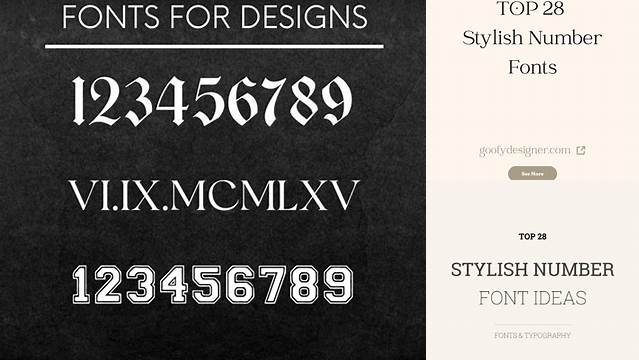
Stylish Number Fonts: Your Ultimate Guide
Hey guys, welcome! If you're anything like me, you know that choosing the right font can make or break a design. And when it comes to numbers, the choices can be just as important! Today, we're diving deep into the world of number fonts. We'll explore everything from classic styles to the latest trends, helping you find the perfect font to make your numbers pop. Whether you're a graphic designer, a web developer, or just someone who loves a good font, this guide has something for you. So, grab your favorite drink, get comfy, and let's get started!
Number Font Selection: Choosing the Right Style
Okay, so you're ready to pick a number font, but where do you even begin? Well, the first step is understanding the different styles available. Number fonts come in a massive range of styles, and each one conveys a different feeling. Think about what message you want to send. Are you going for a clean, modern look? Or maybe something more playful and whimsical? Let's break down some of the most popular number font styles to get you started. First up, we have the classic serif fonts. These fonts, like Times New Roman or Georgia, have little strokes at the end of each number. They're known for their readability and traditional feel, making them great for formal documents and anything that needs to look professional. Then there are sans-serif fonts, which are fonts without those little strokes. These fonts, such as Arial or Helvetica, offer a more modern and minimalist look. They're perfect for websites, headlines, and anything that needs to feel clean and contemporary. Moving on, we have script fonts. These fonts mimic handwriting, offering a touch of elegance and personality. They're often used for invitations or logos. Next up are monospace fonts, which give each number the same width. This can create a unique, techy feel. And finally, display fonts, which are designed to grab attention. These are often bold, creative, and used for headlines or special occasions. The key to selecting the right number font lies in considering the project's purpose and your desired aesthetic. Think about your audience, the overall design, and the message you want to communicate, then choose a number font that compliments your style and is easily readable. Remember, guys, readability is always king!
Number Font Design: Tips and Tricks for Success
Okay, you've chosen your fonts, now it's time to put them to work! Let's talk about some tips and tricks for designing with number fonts. First up is hierarchy. Use different font sizes, weights, and styles to create a visual hierarchy and guide the viewer's eye. Make your most important numbers the largest and boldest. This helps viewers immediately grasp what's important. Next, consider kerning. Kerning is the space between the letters. Adjusting the kerning can greatly affect readability. In some fonts, the spacing between numbers might look awkward. This can be easily fixed in design software. Always fine-tune the kerning for the best results. Now, let's talk about contrast. Make sure your numbers contrast well with the background. If your background is dark, use light-colored numbers and vice versa. This ensures your numbers are easily readable. Another crucial aspect is alignment. Make sure your numbers are aligned consistently. Whether it's left, right, or centered, consistency is key for a polished look. If you have multiple numbers, consider grouping them visually. You can use lines, boxes, or colors to emphasize the connection. Finally, don't be afraid to experiment. Try different combinations of fonts, colors, and layouts to see what works best. Design is all about trying new things until you find the perfect balance. Remember, the goal is to make your numbers look good and be easy to read. By using these tips, you'll create designs that are beautiful and functional.
Modern Number Font Trends: What's Hot Right Now?
So, what's trending in number fonts these days? Let's take a look at some modern number font trends that are turning heads. First up is bold and geometric fonts. These fonts are known for their clean lines and strong presence. They work great for headlines, logos, and anywhere you want to make a statement. Next, we have rounded fonts. These fonts offer a friendly, approachable vibe. They're perfect for apps, websites, and any design that aims to be welcoming. Another trend is variable fonts. These fonts allow you to change the weight, width, and other properties, making them incredibly flexible. They are great for websites, as they can adapt to different screen sizes. Now, let's talk about retro fonts. With the resurgence of nostalgia, retro fonts are becoming popular. They're known for their nostalgic feel. Next up is layered fonts. These fonts have different layers, and they can give a cool 3D effect. They're often used for posters and event promotions. Another trend is handwritten fonts. Handwritten fonts add a personal touch. They're great for invitations and social media. Don't be afraid to experiment with these trends to create designs that are fresh and current. But, remember, always consider the context. What works great for one project might not be right for another. Adapt your fonts and designs to suit the needs of each project.
Number Font for Logos: Making a Great First Impression
Logos, guys, are often the first thing people see, so using the right number font can make a huge difference. Choosing the perfect number font for your logo means understanding your brand's personality and the message you want to convey. First, let's consider readability. The most important thing is that the numbers in your logo are easy to read. Avoid fonts that are too fancy or complex, as these can be hard to read, especially when scaled down. Next, think about style. Does your brand have a classic, modern, or playful vibe? Choose a font that reflects that style. For instance, a tech company might use a clean sans-serif font, while a bakery might use a more playful script font. Now, let's discuss versatility. Make sure your chosen number font works well across different platforms and sizes. Test your logo on your website, business cards, and social media to make sure it looks good everywhere. Another important aspect is uniqueness. While you want a font that's readable, you also want a font that stands out. Look for fonts that are unique to make your logo memorable. Always consider the brand colors. Your number font should work well with your brand's color scheme. Make sure there is enough contrast so your numbers pop out from the background. Finally, remember that your logo should be timeless. Avoid overly trendy fonts that may quickly become outdated. The right number font will help you create a logo that represents your brand well. This all helps to make a positive first impression.
Number Font for Websites: Enhancing User Experience
Websites are all about user experience (UX), and the right number font can significantly impact how users perceive and interact with your site. So, how do you choose the right number font for your website? First and foremost, readability is critical. Select fonts that are easy to read on different devices and screen sizes. Sans-serif fonts are usually a good choice for web content. Next, think about accessibility. Make sure your number font is accessible to users with visual impairments. Use sufficient contrast between the font color and the background. Also, choose fonts that have clear number shapes. Then, consider performance. The font you choose should load quickly. Avoid fonts that are large, as they can slow down your site. Choose web-optimized fonts and use font formats like WOFF. Think about branding. Choose a font that matches your brand's personality. Consistency is key. If you are using the same font for other elements on your site, make sure it is also used for your numbers. Remember responsiveness. Your number font should look good on any screen size. Make sure your design is responsive to adapt to different devices. It's also important to think about user engagement. Use your number fonts to grab attention. Consider using bold numbers for important stats, such as customer reviews or sales figures. Use number fonts strategically throughout your site to guide the user and improve the user experience. When designing your website, always consider the user.
Number Font for Print: Ensuring Legibility and Impact
Print design, guys, has its own set of challenges and considerations when choosing number fonts. Let's explore how to select the right number fonts for print projects. First, always prioritize readability. Printed materials, like brochures or magazines, need to be easy to read. Avoid fonts that are too thin or complex. Then, choose fonts that work well on paper. Some fonts might look great on a screen but not so great on paper. It is a good idea to print a sample of your design. Consider the size and scale of your project. A large poster requires a different font than a small business card. Make sure your numbers are visible from a distance. Always use high-resolution fonts. Ensure that the fonts are high-resolution to avoid pixelation. Avoid pixelated numbers. The color of the numbers is also important. Choose a font color that contrasts well with the background. High contrast improves readability. Consider the paper type. The type of paper you choose can affect the look of your font. Test your font on various paper types before printing the entire project. Also, think about the context of the design. The number font you choose should match the design's overall theme and tone. Formal documents require professional fonts, while playful projects might use a more creative style. By considering all these things, you can make informed decisions and ensure your numbers look great in print. Prioritizing clarity and impact helps make your print designs successful.
Best Number Fonts for Websites: Top Choices
So, you want to know the best number fonts for your website? Let's dive into some of the top choices. First, Roboto is a versatile and popular sans-serif font known for its readability and modern look. It is ideal for websites and can be used for various purposes, from headlines to body text. Another great option is Open Sans. This is another popular sans-serif font that is clean and easy to read on screens. It's a great choice for websites. Next, we have Lato. This sans-serif font is known for its friendly and approachable feel. It is a great choice for websites. Then, consider Montserrat. This is a sans-serif font that has a geometric style. It is perfect for websites. Then, we have Poppins. This is a versatile sans-serif font that is known for its clear and simple design. It is very popular for websites and can be used for any purpose. The next one is Raleway. This sans-serif font is known for its elegance and is a good choice for websites. Finally, Nunito is a simple, easy-to-read, and very modern sans-serif font that is an ideal pick for a lot of websites. Remember that readability is key. Experiment with different fonts to see what best fits your website's design. Use the fonts that match your brand. Test how these fonts look on different devices.
Number Fonts in Graphic Design: Creative Applications
Graphic design is where number fonts really shine, offering unlimited creative possibilities! Here are some creative applications for number fonts in graphic design. First, in infographics, use number fonts to highlight statistics and data. Choose clear and easy-to-read fonts to communicate information. Also, use them in posters and flyers. Use bold and eye-catching fonts to create headlines and attract attention. In logos, use number fonts to represent dates, quantities, or other information. Always choose fonts that match your brand's identity. Next, consider packaging design. Use number fonts for product codes, dates, and other details. Make sure the fonts are easy to read and reflect your brand's style. Then, we have social media graphics. Use number fonts to create eye-catching posts with statistics or announcements. Choose fonts that stand out on social media. Now, let's talk about typography art. Use numbers as the main design element. Combine different fonts and sizes to create unique artworks. Another application is in motion graphics. Use number fonts in video titles, animation, and transitions. Choose fonts that are easy to read on screens. The key to great design is to experiment with different combinations. Graphic design is all about creativity.
Number Font for Excel: Optimizing Spreadsheet Readability
Okay, guys, let's talk about number fonts in Excel! Choosing the right font for your spreadsheets can improve readability and make your data easier to understand. Here are some things to consider. Firstly, readability is crucial. Select a font that is clear and easy to read, even when the numbers are small. Then, consider legibility. Make sure that numbers like 1 and 7, or 0 and 8, are easily distinguishable. Also, use sans-serif fonts, like Arial or Calibri. These fonts are generally easier to read on screens. Ensure there is enough spacing between columns and rows to avoid crowding. Also, use different font sizes to highlight important information. Consider using bold to draw attention to headings or totals. Use colors to differentiate data. Then, apply consistent formatting throughout the spreadsheet. Consistency enhances readability and makes your data more organized. Always test your spreadsheet to ensure that everything is clear and easy to read. By choosing the right number font and formatting, you can transform your spreadsheets from complex data to a clear visualization. Remember that organized spreadsheets are very important.
Number Font for Presentations: Engaging Your Audience
Presentations are all about captivating your audience, and the right number font plays a crucial role in achieving that! So, here's how to choose number fonts that engage. First, readability is key. Choose fonts that are easy to read from a distance. Sans-serif fonts like Arial or Calibri are often great choices. Next, consider visual impact. Select fonts that are visually appealing and complement your presentation's overall design. Also, be consistent. Use the same number font throughout your presentation to create a cohesive look. Make sure you have enough contrast between your number font and the background. High contrast improves readability. Choose font sizes that are large enough to be seen. Also, use bold to emphasize important numbers or data. Then, apply animations. Use animations to make your numbers more engaging. Consider white space. The use of white space prevents clutter and improves readability. Choose fonts appropriate for your theme. Professional presentations require professional fonts. Consider your brand. Using the same font style on your brand creates consistency. Always test your presentation to ensure the font is easy to read on the big screen. By selecting the right fonts, you can transform your presentation from a data dump to an engaging experience.
Number Font for Coding: Enhancing Code Readability
Alright, let's talk about number fonts for coding. Using the right font can significantly improve code readability, making it easier for you to understand and debug your code. First, monospace fonts are the go-to choice. These fonts give each character the same width, which helps align your code and makes it easier to scan. Then, consider the clarity of the characters. Choose fonts where characters like '0' and 'O', or '1', 'l', and 'I', are easily distinguishable. The font size should be comfortable to read. Choose a font size that is comfortable to read for long coding sessions. Think about the font weight. Use a clear font weight so you can see the font clearly. Syntax highlighting can help you differentiate between different parts of your code, making it even more readable. Contrast is also important. Use fonts with high contrast. Also, think about the environment. Choose a font that is compatible with your code editor or IDE. You can also consider personal preferences. Experiment with different fonts to find one that feels comfortable. Also, it's important to think about legibility. Choose the right number font with the right legibility. By choosing the right number font, you can make your code look better, read better, and easier to maintain.
Number Font for Mathematics: Displaying Equations Clearly
For mathematics, selecting the right number font is crucial for displaying equations clearly and accurately. So, let's dive in! First and foremost, clarity is key. Ensure the font's numbers and symbols are easily distinguishable, minimizing confusion. Serif fonts, such as Times New Roman, are often preferred for mathematical equations because the serifs help differentiate characters. Also, make sure the font size is appropriate for the context. The size should be large enough to be read easily, especially in printed materials. Also, consider the symbols the font supports. Math often uses many special characters. It is good to choose fonts that have a wide range of mathematical symbols. Check for compatibility. Ensure that the font you choose is compatible with the software you're using. Next, think about consistency. Maintain the same font throughout your equations for a professional look. Be sure to choose a font weight that is easy to read. Always consider readability. Choose a number font that is clear and easy to read. Also, test your equations. Make sure everything is legible before using it for a project. Choosing the right font can ensure the clear presentation of complex equations and ensure that everything is understandable.
Number Font for Calendars: Creating Readable Schedules
Calendars, my friends, are all about organization, and the right number font can make or break your schedule! First and foremost, readability is crucial. Choose fonts that are easy to read at a glance. Avoid overly decorative fonts that might be hard to decipher. Size also matters. Make sure the numbers are large enough to be easily seen, but not so large that they take up too much space. Also, use sans-serif fonts for a clean and modern look. Ensure sufficient spacing between the numbers and other elements. The spacing ensures clarity. Also, consider contrast. Ensure your numbers contrast well with the background color. Think about hierarchy. Use bold or different font sizes to highlight important dates. Also, use visual cues. Consider using different colors to highlight important events. The format must be consistent. Use consistent formatting to avoid confusion. Make sure your calendar is accessible. It should be easy to read by everyone. Always make sure the font fits your brand. Choosing the right number font can help you create a schedule that's both functional and visually appealing. Use the right number font and organize your schedule!
Number Font for Watches: Balancing Style and Functionality
Watches are a perfect blend of style and function, and the number font you choose plays a huge part in how they're perceived. First up is readability. This is crucial. The numbers need to be easily readable at a glance, especially in low-light conditions. Then, think about style. The font should match the watch's overall design. A classic watch needs a classic font. Also, consider the size and scale. The size and scale should fit the watch face and be proportional. Remember that contrast is very important. Make sure the numbers contrast well with the watch face. Another important aspect is legibility. Choose a font that is clear and legible. Also, consider functionality. Make sure the font is practical for the watch's purpose. Be sure the font is consistent with your brand. Always test the font under different light conditions. Choosing the right number font can enhance a watch's style and functionality.
Number Font for Financial Documents: Ensuring Accuracy
When it comes to financial documents, accuracy and clarity are paramount, making the right number font a critical element. First, readability is extremely important. The font needs to be easy to read. Also, consider legibility. Make sure that all numbers, including decimal points, are clearly distinguishable. Use sans-serif fonts to ensure clarity. Make sure to use sufficient spacing between numbers. Consider font size. The font size should be appropriate for the document. Also, use bold for important figures or headings. Consistency is also vital. Use the same font throughout the document. Choose a professional font. The font should look professional. Always double-check the numbers. By selecting the right number font and careful formatting, you can enhance the accuracy and professionalism of your financial documents. Remember, clarity is key!
Number Font for Sports: Creating Engaging Scoreboards
Sports scoreboards are all about delivering information instantly. Choosing the right number font can significantly impact how fans experience the game! First, the readability is crucial. Numbers must be visible from a distance and in any lighting conditions. Bold, clear fonts are typically ideal. Then, consider size and scale. The numbers need to be large enough to be seen clearly from afar. Use high-contrast colors between the numbers and the background. Then, think about style and branding. The font should match the team's or league's brand identity. Also, make sure to consider clarity. The fonts should be clear and easy to understand. Consider the viewing angle. Make sure the numbers are readable from different angles. Consistency in the font choice is key throughout the scoreboard. Then, ensure it is durable. The font must be durable for outdoor usage. Consider animation. Use animation to highlight important information. The right number font can make scoreboards more effective.
Number Font for Data Visualization: Presenting Data Clearly
Data visualization is all about turning complex data into understandable visuals. The right number font can greatly impact the effectiveness of your charts and graphs. Firstly, readability is key. Choose fonts that are easy to read, even when they are small. Also, consider legibility. The numbers should be clear and easy to distinguish. Use sans-serif fonts for clarity. Ensure there is enough contrast between the font color and background. Also, use an appropriate font size. Select a font size that fits the data visualization. Then, apply consistency. Use the same font throughout the data visualization. Make sure it is clear. The fonts should be clear and easy to understand. Always consider accessibility. Design the data visualization to be accessible to everyone. Also, consider your brand. It should match your brand's identity. Choosing the right number font helps to turn complex data into clear, understandable visuals.
Number Font for Video Games: Enhancing the Gaming Experience
Video games are all about immersion, and the right number font can significantly improve the gaming experience. First, the readability is extremely important. The numbers must be easy to read on any screen. Also, think about style. The font should match the game's style. Select a font that fits the gaming genre. Contrast is very important. Ensure the numbers contrast well with the background. The font size must be appropriate for the game. Make sure it's visible. Also, think about legibility. The fonts should be clear and easy to understand. Next, consider animation. Use animation to make your numbers more engaging. Consistency is also important. Use consistent fonts throughout the game. Always test the font in the game. Choosing the right number font enhances the gaming experience.
Number Font for Education: Making Learning Engaging
In education, making learning engaging is the name of the game. The right number font can make a big difference in how students interact with educational materials. The first priority is readability. Choose fonts that are easy to read for all ages. Then, think about legibility. Make sure that the numbers are easy to understand. Also, make sure to use sans-serif fonts. This will provide better clarity. Consider the font size. Make sure to use an appropriate font size. Also, think about visual appeal. Use the right font to enhance the learning materials. Consistency is vital. Use consistent fonts throughout your learning materials. Consider accessibility. Always ensure the learning materials are accessible to everyone. The font should match the age. The right number font can help create a more engaging learning environment.
Number Font for Digital Art: Expressing Creativity
Digital art is all about expressing creativity, and choosing the right number font can be a powerful tool! So, let's explore the creative applications! First, think about style. The font should match the artwork's style. Also, think about expression. The font should convey the message you want to express. Then, think about the visual appeal. The font should enhance the artwork's overall appearance. Also, use bold fonts. The font must be bold and stand out. Experiment with different fonts. Experiment with a lot of different fonts to express your creativity. Consider color. The font should match the color of your artwork. Consistency is important, too. Use consistent fonts throughout your artwork. By choosing the right number font, you can enhance the beauty of your digital art.
Number Font for User Interfaces (UI): Improving Usability
User interfaces (UI) are all about usability. The right number font can greatly improve the user experience. First, readability is key. Choose fonts that are easy to read. Also, consider legibility. The numbers must be clear and easy to understand. Also, consider the font size. Use a font size that's appropriate for the UI. Make sure to choose a font that matches the UI. The font must match the style of the UI. Consider responsiveness. Choose a font that works on different screen sizes. Also, always consider accessibility. Make your UI accessible for everyone. Make your UI easy to use, and the right number font helps a lot.
Number Font for Tables: Organizing Data Effectively
Tables are all about presenting data effectively. The right number font can make your tables easier to read and understand. So, first, readability is critical. Choose fonts that are easy to read in the tables. Consider the font size that fits the size of the table. Next, think about legibility. Numbers should be clear and easy to distinguish. Also, you should always use sans-serif fonts. This will help the clarity. Consider alignment. Align your numbers for a clean look. Consider spacing. Ensure enough space between the numbers. The right font can help organize your data effectively!
Number Font for Spreadsheets: Enhancing Data Analysis
Spreadsheets are essential for data analysis, and using the right number font can greatly improve the accuracy and clarity of your data. First, the readability is key. Numbers should be easy to read, even when the numbers are small. Also, make sure the font is legible. Ensure numbers are distinguishable. Consistency in formatting enhances readability. Also, use the right font size. The font size should be appropriate for the context. Then, use bold to emphasize important numbers. Also, use colors for clarity. The right font enhances data analysis.
Number Font for Animation: Creating Dynamic Visuals
Animation is all about creating dynamic visuals, and using the right number font can bring your animations to life. First, the readability is important. The font should be readable on the screen. Also, consider the style of animation. The font must match the style of your animation. Then, you should choose the right font size. The size must be appropriate for your animation. Also, make sure to use clear fonts. Clear fonts are easier to read on the screen. The font must be consistent. The right font can bring your animations to life.
Number Font for Subtitles: Improving Accessibility
Subtitles are vital for accessibility, and choosing the right number font can make them even more effective. First, the readability is important. Subtitles should be easy to read. Also, the legibility is key. Make sure the numbers are easy to distinguish. The font must be the right size. The font size must be appropriate. And lastly, the right number font makes subtitles more accessible. With the right number font, you'll create clear, accessible subtitles!